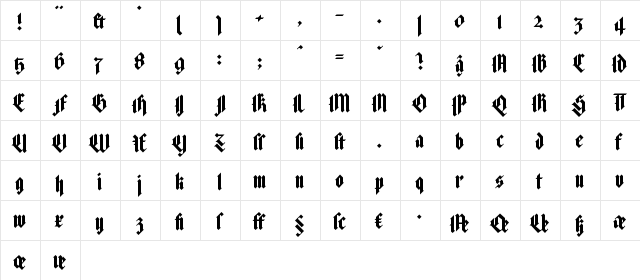
Texture Regular
Design Context for Texture Typeface
Texture embraces imperfection — its rough, textured character adds raw authenticity to designs that want to feel lived-in and unconventional.
Suited to punk-influenced zines, underground music branding, streetwear, and raw, anti-corporate design.
Pro Tip: Pair Texture with intentionally raw or lo-fi design elements. Fighting against it with overly polished surroundings will undermine its personality.